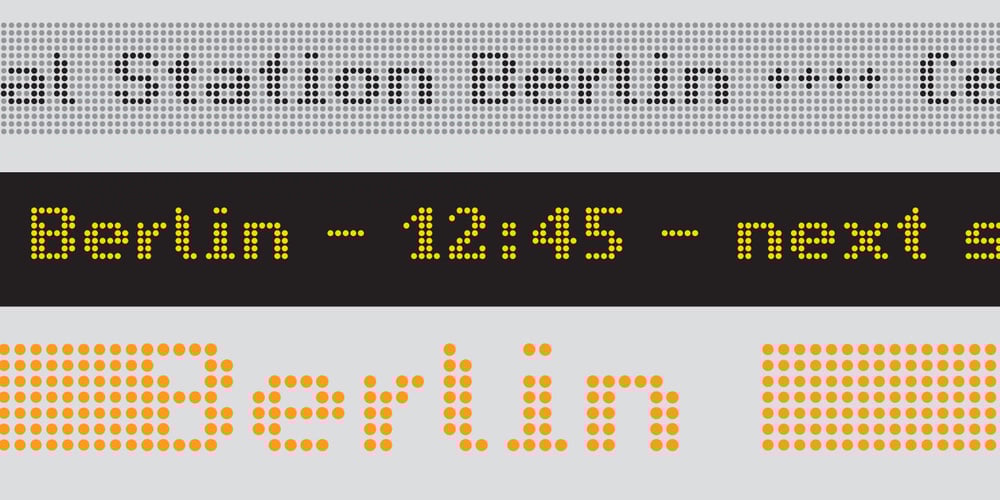
JohnLED7 Font Family was designed by Georg John and published by Georg John. JohnLED7 contains 5 styles and family package options. All four styles together for the price of one! Includes an extended character set, also symbols, arrows and ornaments. Designed for best legibility and distinctness, as far as possible according to technical restrictions!